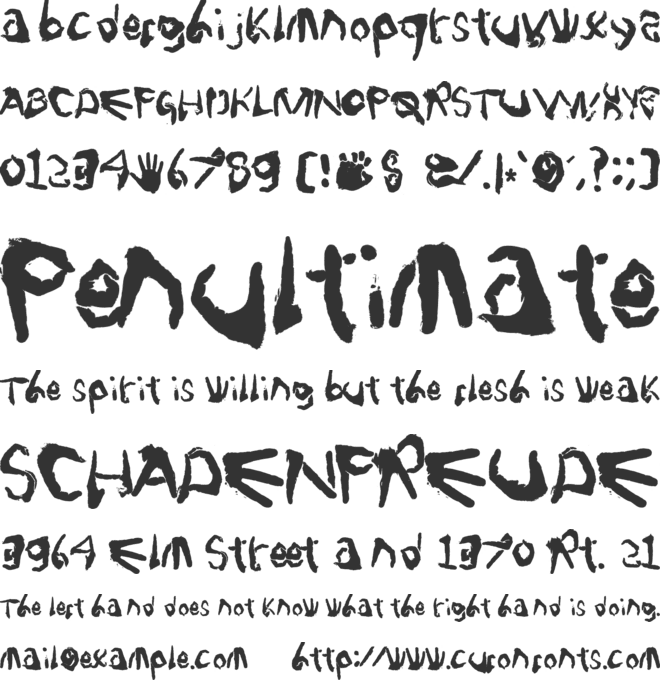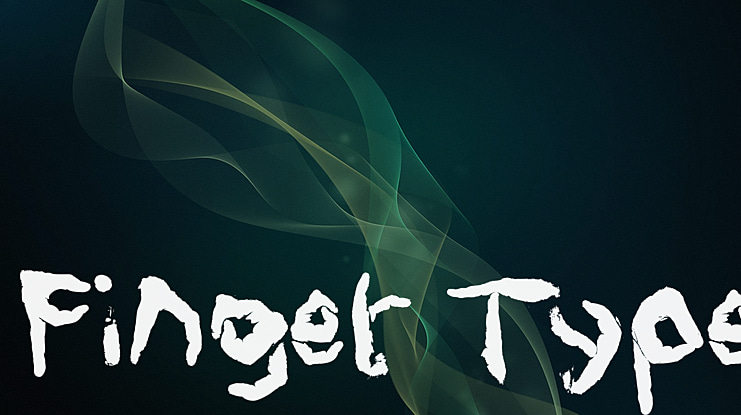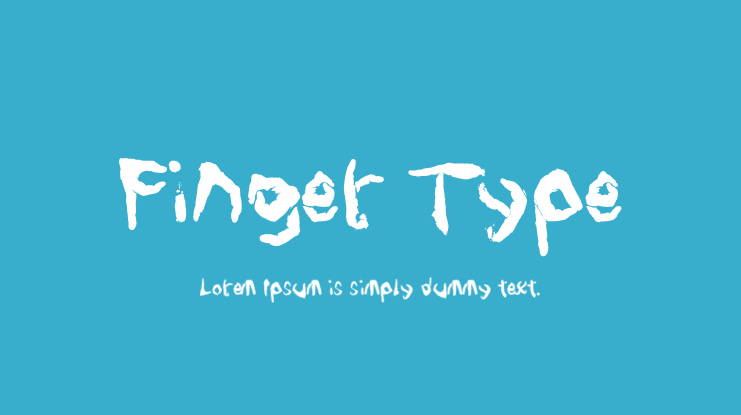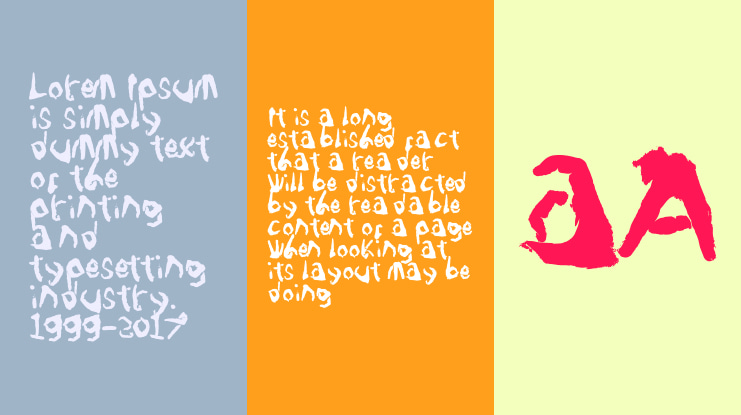
Finger Type Font
FingerType is a handwritten font in the most basic sense of the word handwritten. Letters are formed by my own 39 year old hands & fingers copied on a Ricoh MP C4500 photocopier. The font is free for personal use only. If used for commercial use, please contact me at  (mailto:)